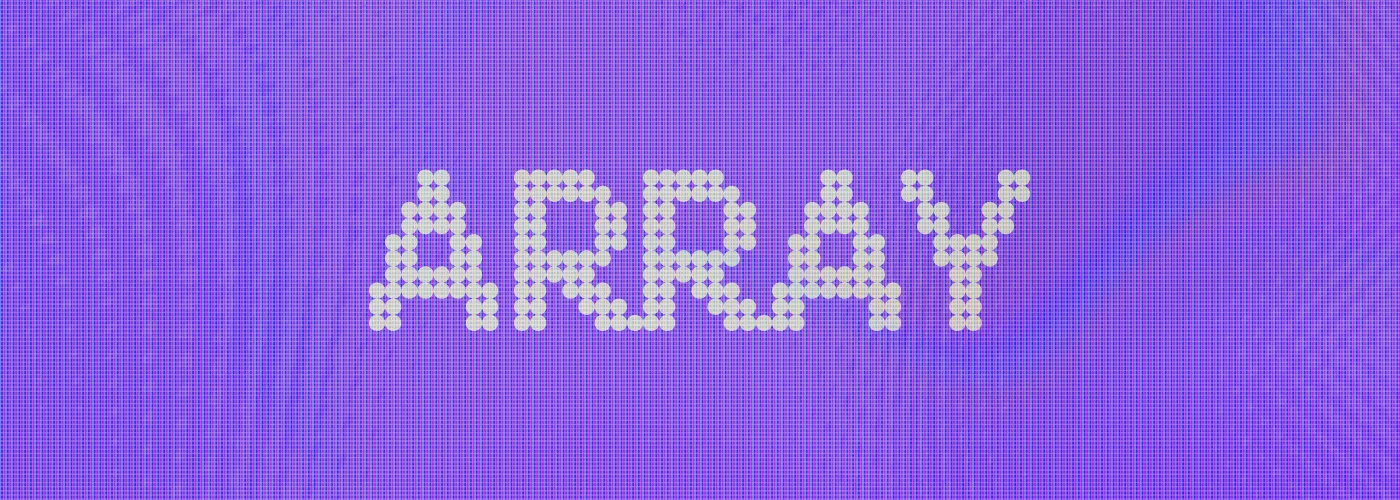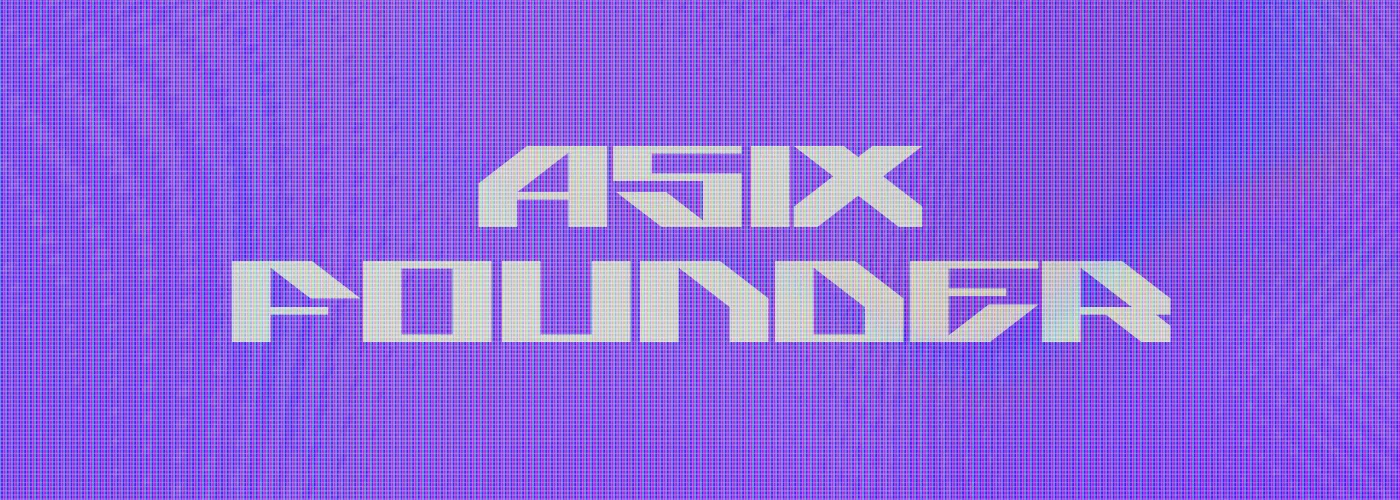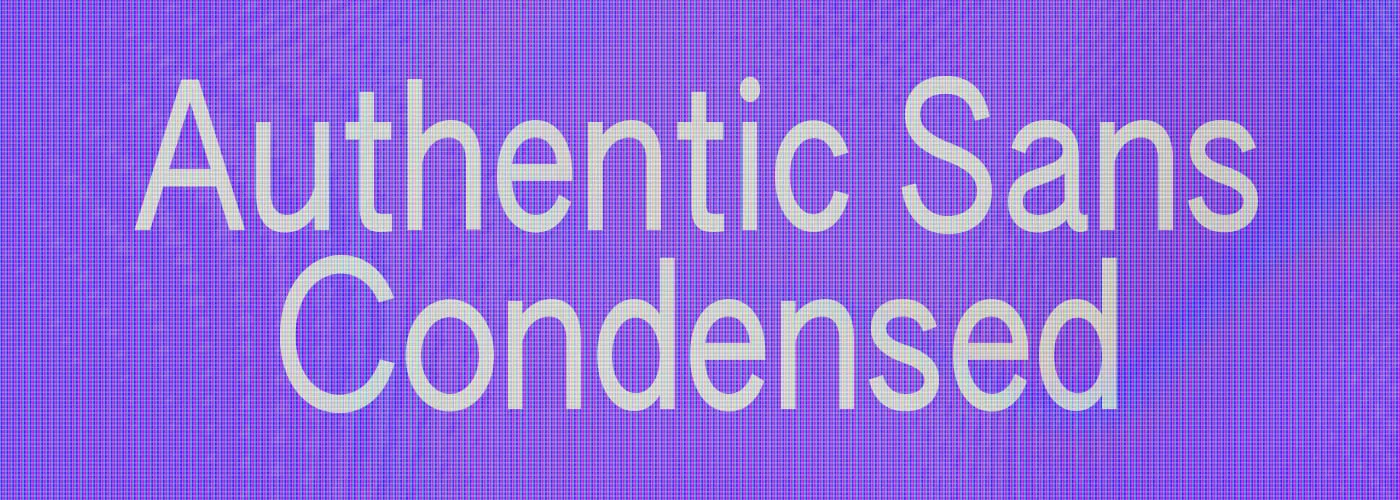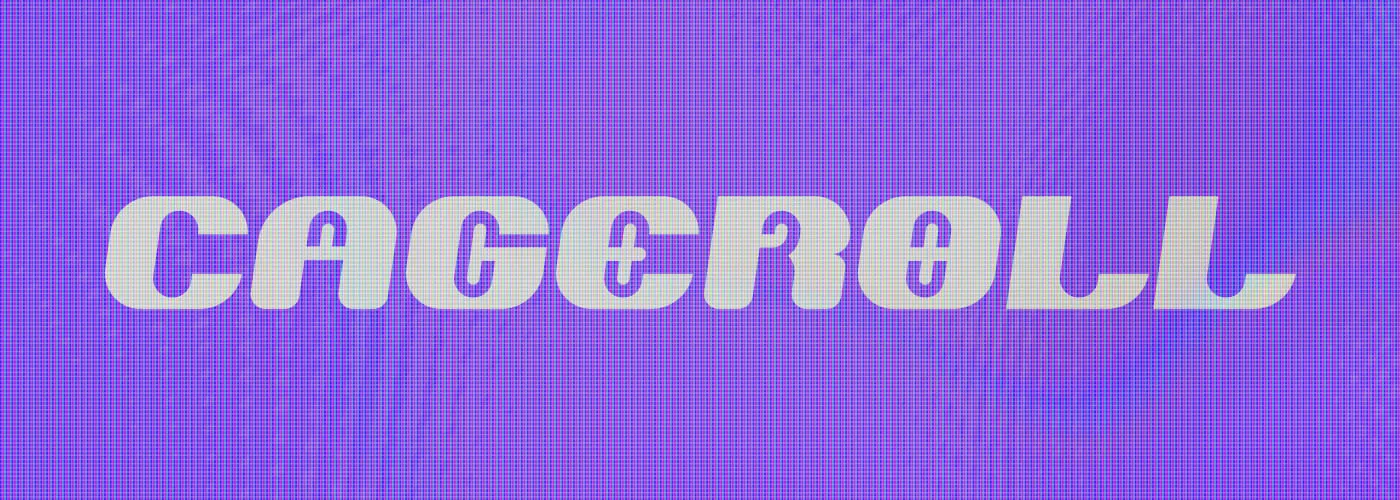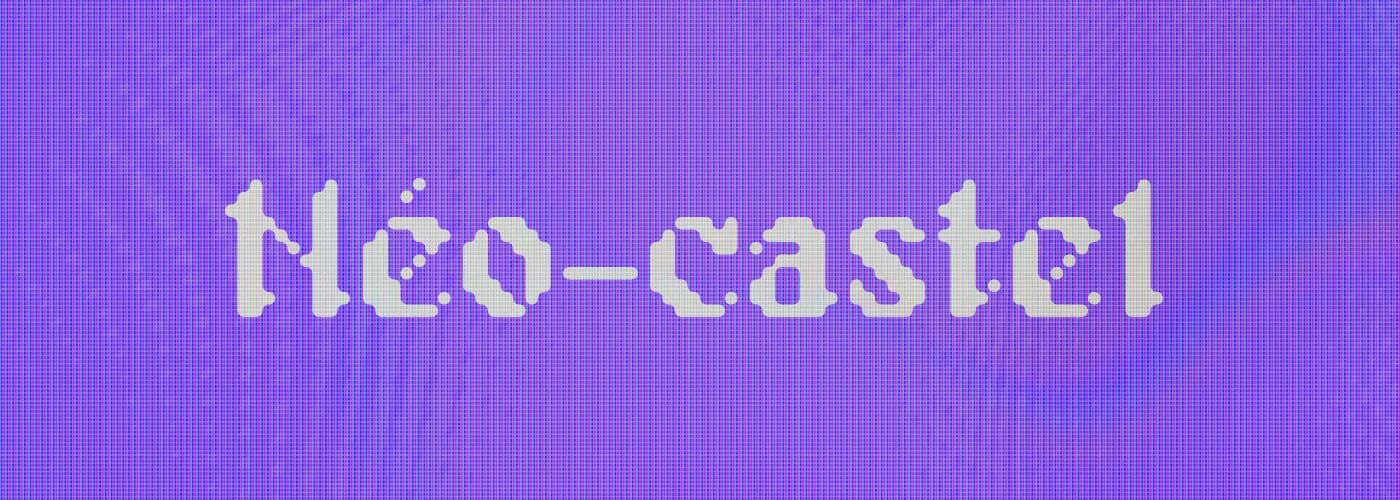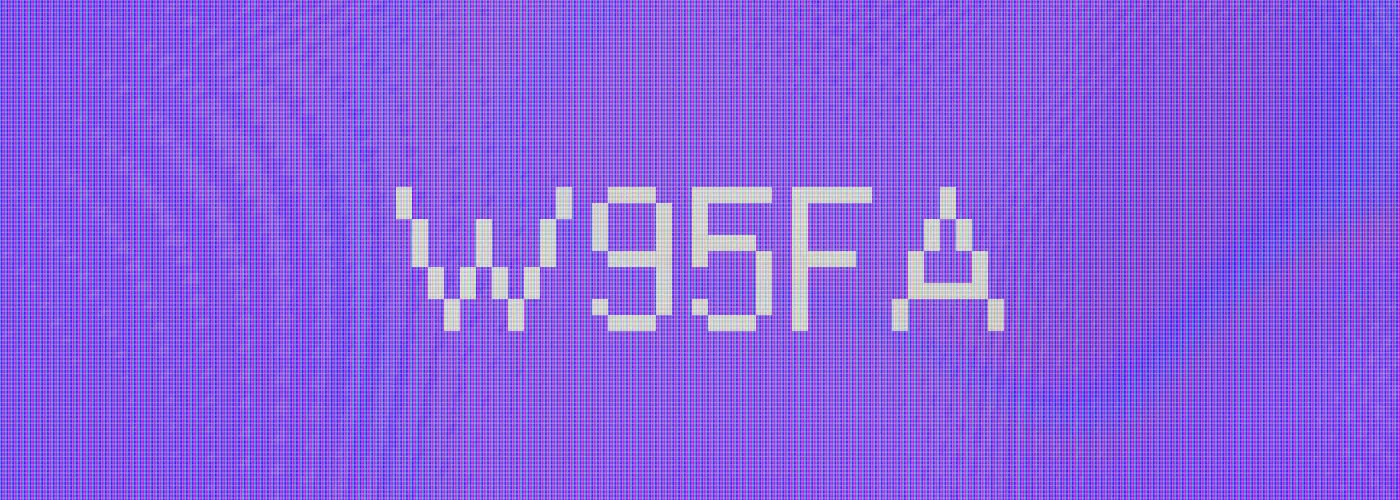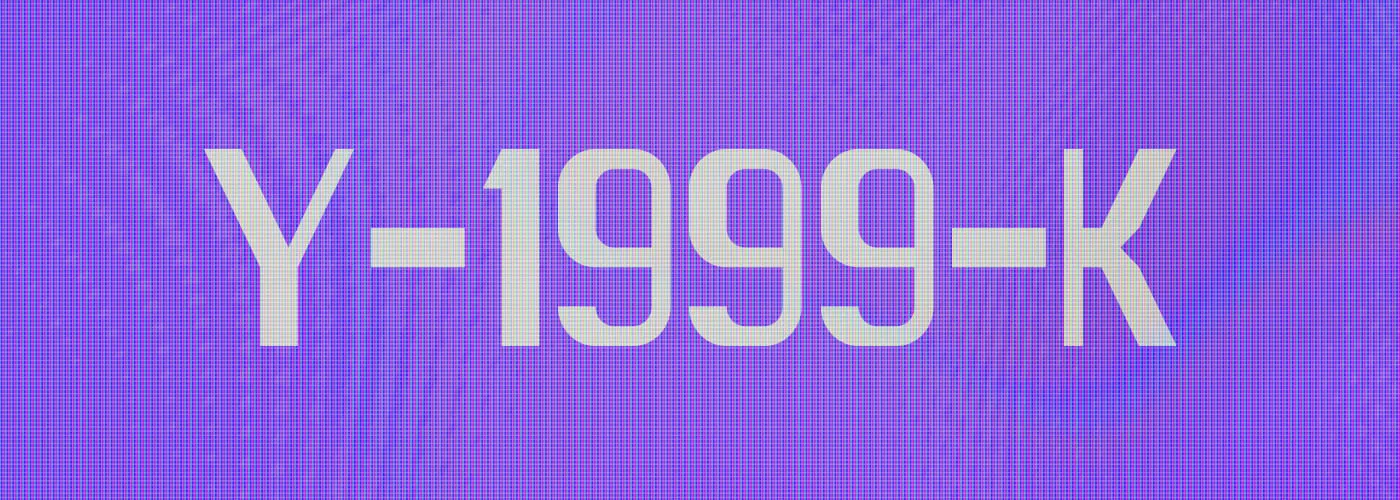
Since the beginning of the millennium, technology has advanced in ways we never thought imaginable. Well-designed interfaces and near-perfect functionality are part of our everyday lives through most of our digital devices, but we’ll never stop missing the stretched fonts and laggy menus from our old early 2000s computers.
If you want to revisit the Y2K (year 2000) visual paradise that we left behind 20 years ago, these free fonts are the cherry on top for your next project.
Cageroll was designed by Jorge Villareal, a graphic designed based in Austin, Texas with experience on motion graphics, video editing and 3D modelling and design. This font was inspired by PS1 racing video games, although it also reminds us of Tamagotchi and other digital toys of that kind. It’s free for personal and commercial use, and you can download it through this link.
Designed by Max Lillo, Néo-Castel combines the audacity and intricate details of Gothic letters with the vibrant, tech-driven spirit of the Y2K era. This creates a captivating typeface that blends sharp, angled lines with futuristic, digital embellishments. We think it could be a perfect match for a medieval adventure game (capable of running on Windows XP, of course). Registered through a SIL Open Font License, you can download it here.
This font was designed by Alina Sava, who created it for a WordPress theme inspired in Windows 95. It was inspired by MS Sans Serif that, as a consequence of low screen resolutions, appeared pixelated to the eyes of W95 users. We’ve actually used this font before and we love it! Free for personal and commercial use, you can get it from here.
If you still had any doubts after reading its name, this font created by Indonesian designer Naufal Muhammad Haiqal was inspired by retro-futuristic videogames from the early 2000s. It feels like what we thought the future would be like. Y-1999-K is free for personal and commercial use and you can find it here.
Designed by Norwegian typeface designer Frode Helland, Array is a font family created for Fontstore and available in the Fontshare library. Ideal for experimental graphic design, it’s also suitable for electronic displays, print, and online editorial projects, particularly those where large font sizes are needed. Download Array here.
Asix Founder is part of a free font bundle from designer Misteik Franco who creates Y2K inspired typographic explorations, optimized for logo design. Our personal favorite was Asix Founder, you can check it out here.
Designed for the Vega protocol and released by Font Fabric, Alpha Lyrae draws inspiration from the reliability of Helvetica, but it quickly breaks into the “glitch” territory that defined early digital experimentation. The font automatically swaps characters for pixelated versions, creating a rhythmic distortion. It’s a perfect tool for capturing that “system error” aesthetic we remember so fondly. You can download it here.
Designed by Hiya Singh, Gemini is a display typeface that perfectly captures the concept of duality by blending fluid curves with sharp geometric edges. The stars and the irregular shapes makes it feel straight out of the McBling aesthetic. It’s a versatile tool for those looking to add a touch of expressive, experimental flair to their digital compositions. You can download the font here.
Doto is a geometric, monospace typeface family designed by Óliver Lalan that brings the classic bitmap aesthetic into the modern era. Constructed on a precise 6×10 matrix, it perfectly captures the pixelated essence of early digital displays and handheld devices. What makes Doto truly special for experimental design is its nature as a variable font; it features two axes that allow you to control both the size of the individual dots and their roundness. You can get the font here.
Designed by JapanYoshi, Audio Nugget is a “blobby” display font that feels like a love letter to early 2000s vector art and the playful experimentation of the era. Its name is a clever nod to the “nuggets” (low-quality MP3 players) famously referenced by DankPods, capturing the exact kind of quirky energy found in early portable tech. With its uneven edges and liquid-like curves, this typeface avoids the clinical perfection of modern design in favor of a spirited, irreverent groove. You can download it here.
Wrink, designed by Ana Fegos, is a display typeface that embodies the more rugged and “anti-design” side of the Y2K aesthetic. Unlike the polished chrome curves of the era, Wrink embraces a distorted texture that feels like a digital glitch frozen in time. Its irregular shapes and raw, edgy energy make it a standout choice for projects that want to break away from clean lines and instead lean into the experimental and subversive spirit of early 2000s underground culture. It’s perfect for adding a layer of tactile grit to your headers or posters. You can download the font here.
Created by Ralph Bruens, Flux is a variable display font that perfectly encapsulates the liquid energy of the Y2K era. Its design is a nod to the flow of early 2000s motion graphics, where shapes were often stretchy, organic, and seemingly in a state of constant transition. As a variable font, Flux offers a level of digital malleability that allows you to adjust its forms, making it an excellent candidate for experimental layouts that need to feel alive and responsive. Whether you’re designing for a high-tech interface or a nostalgic digital archive, its fluid geometry brings a dynamic edge to the table. You can get the font here.